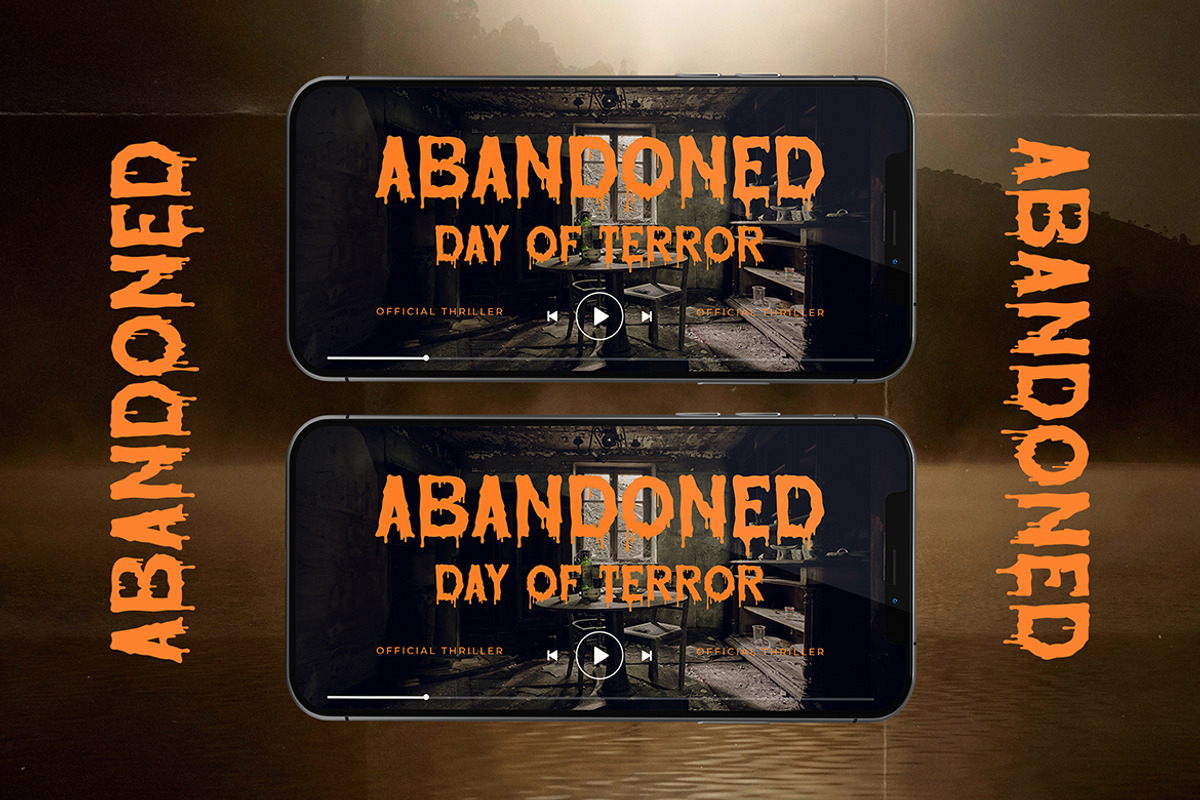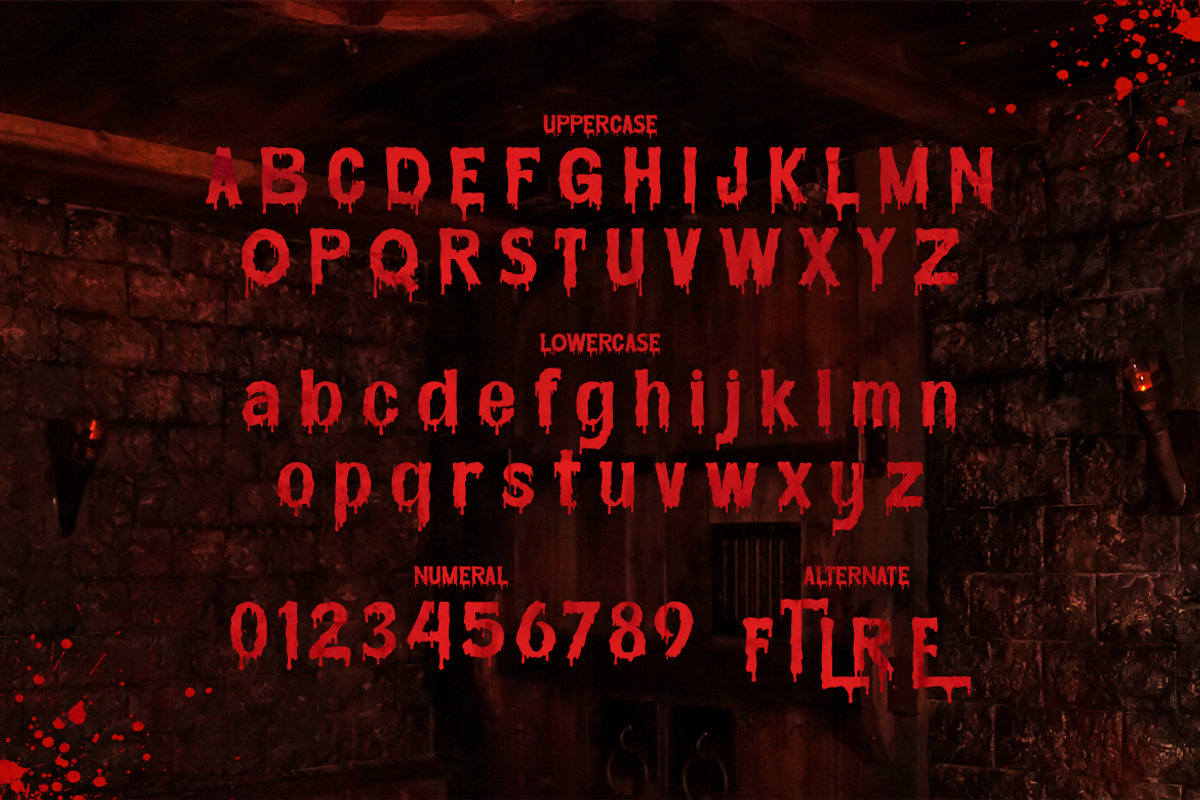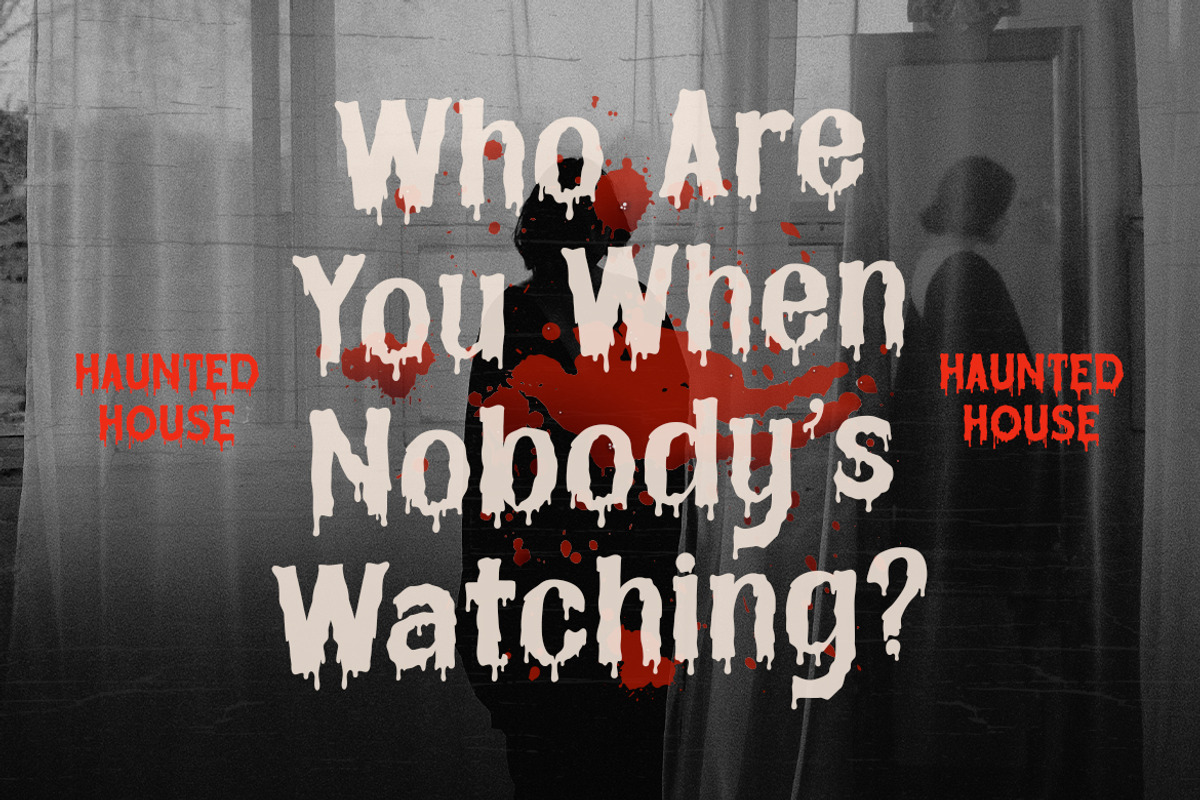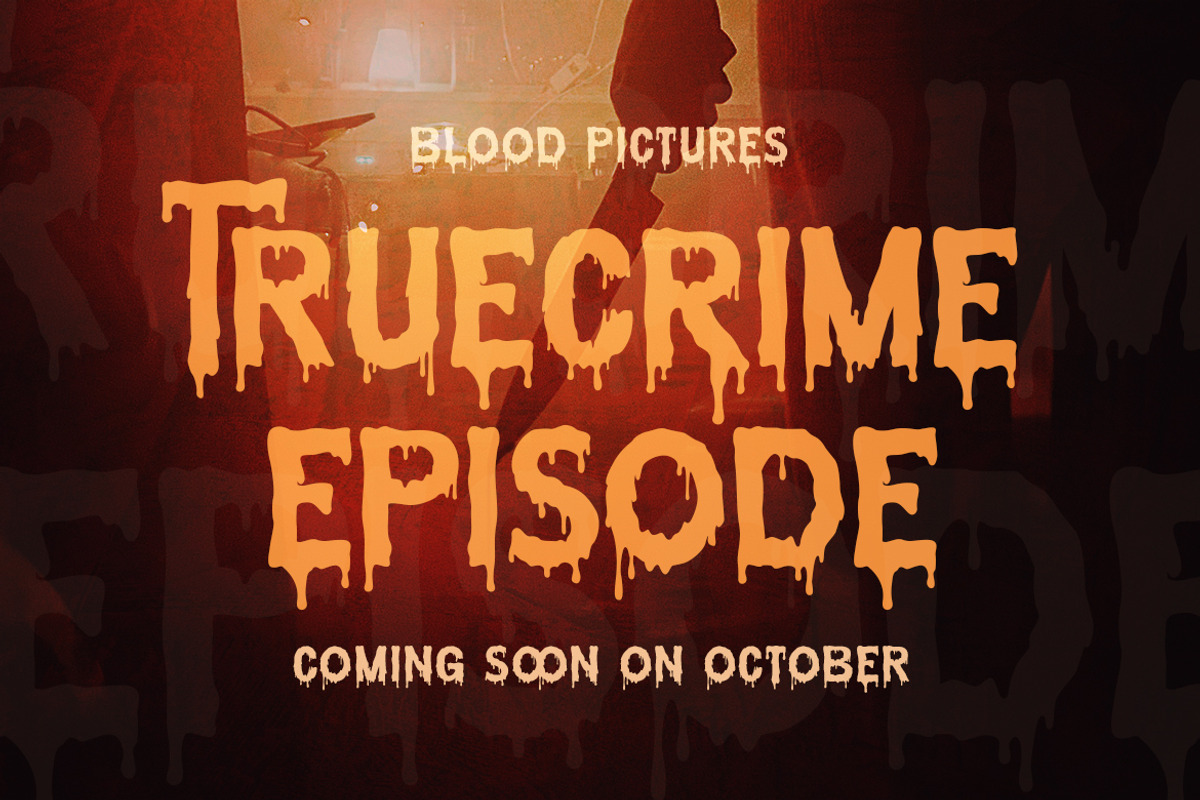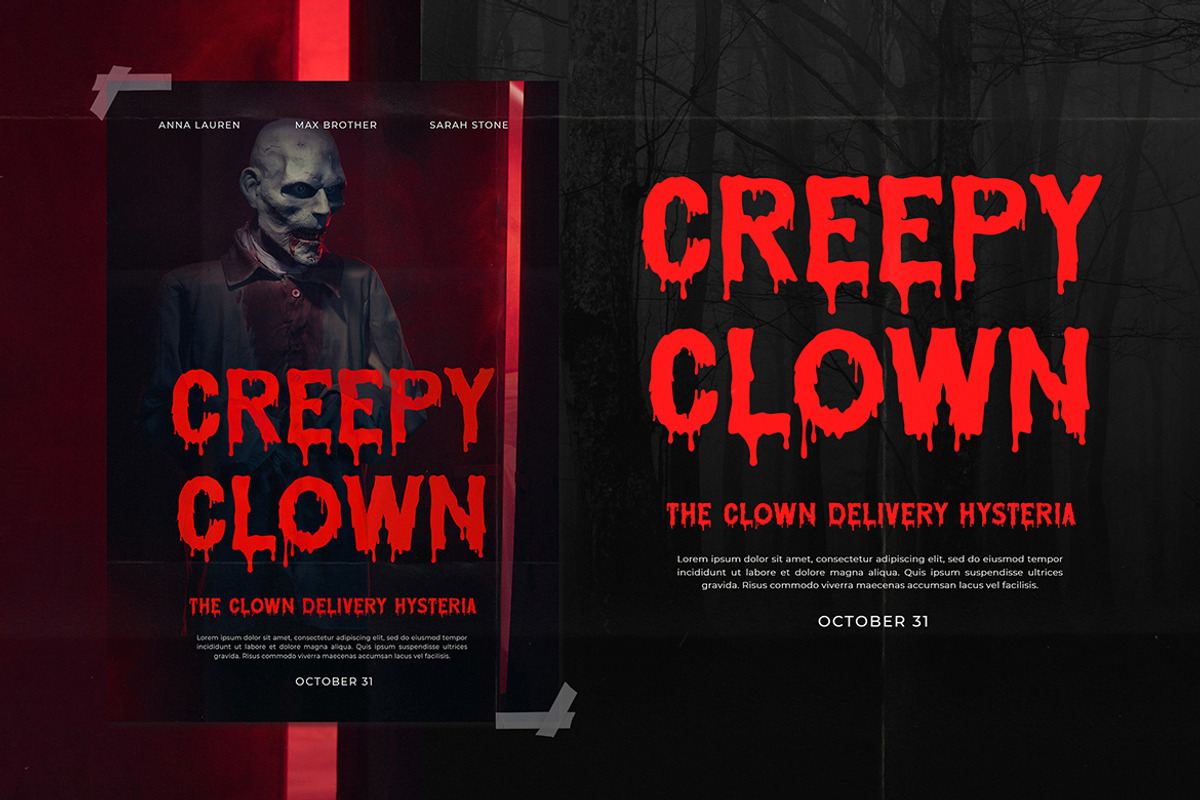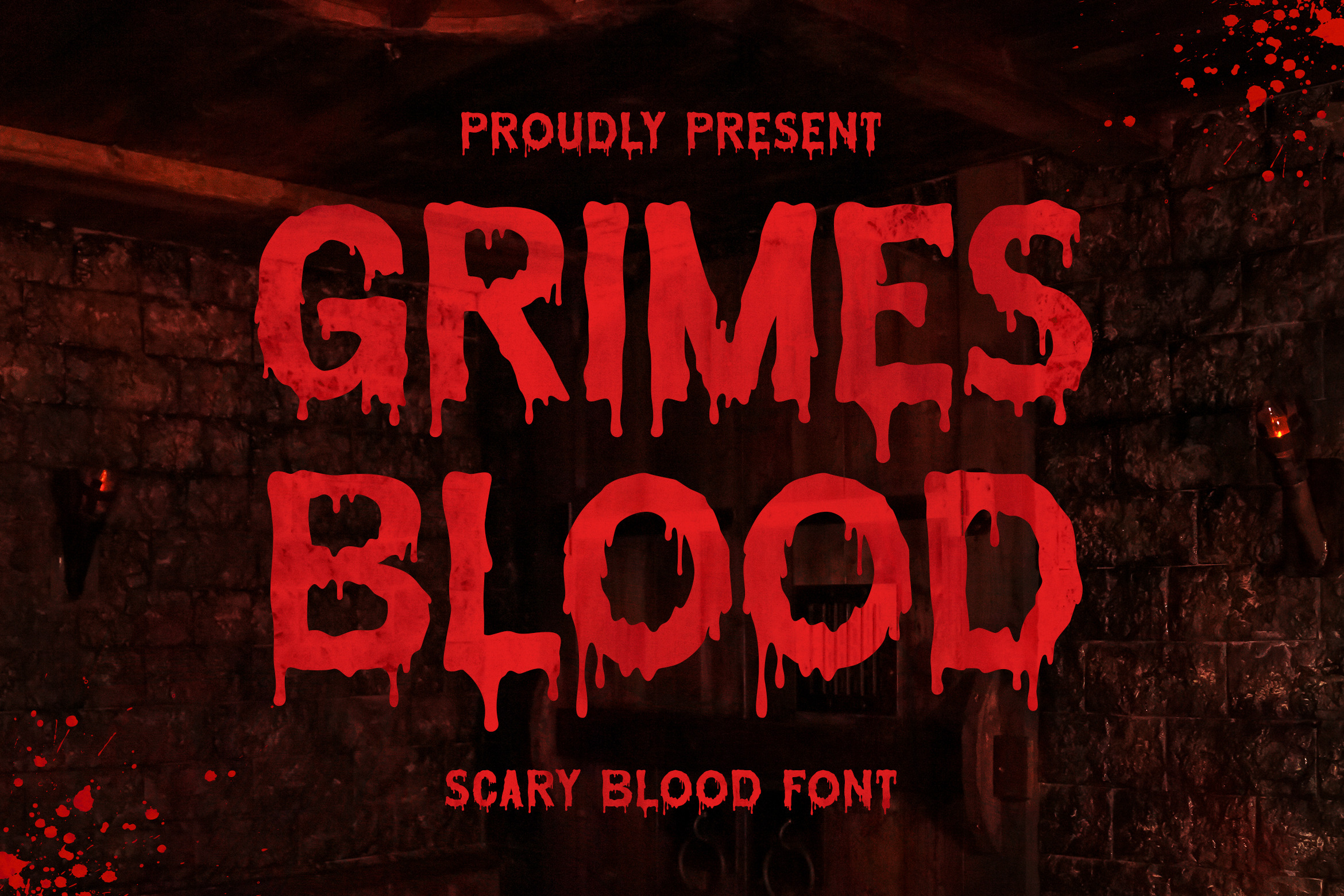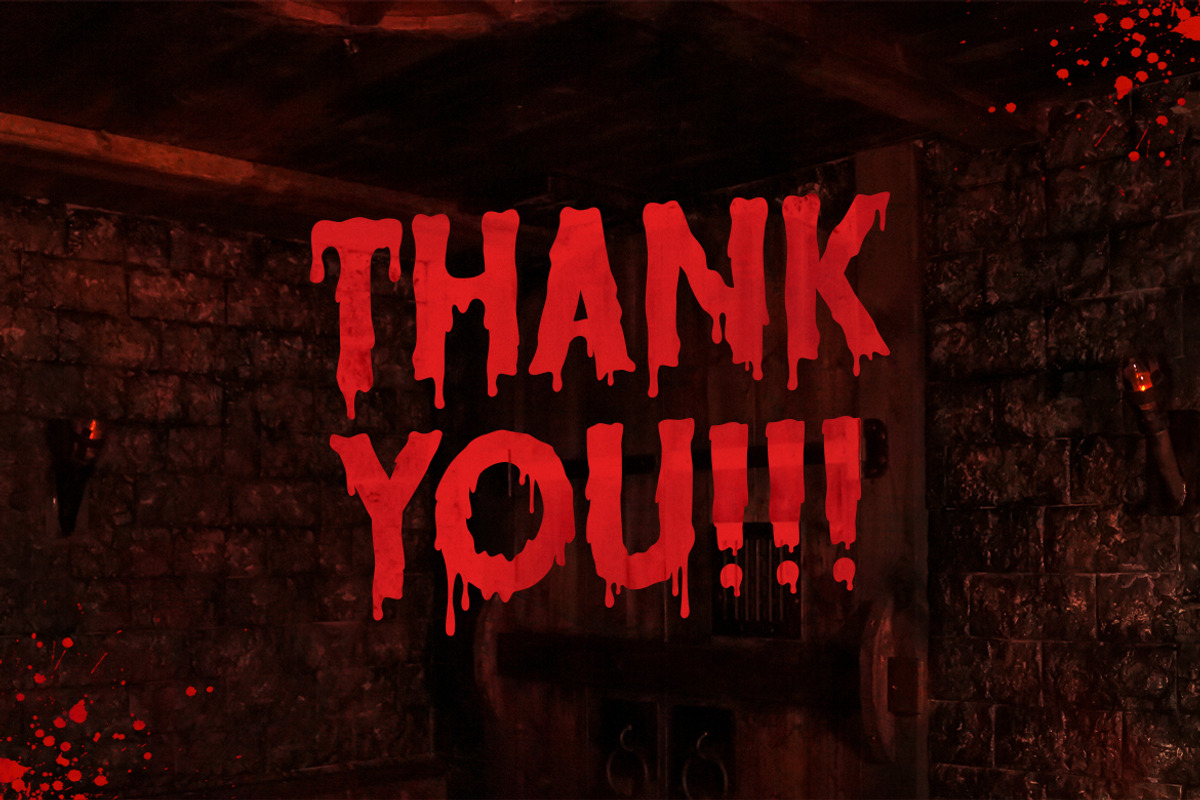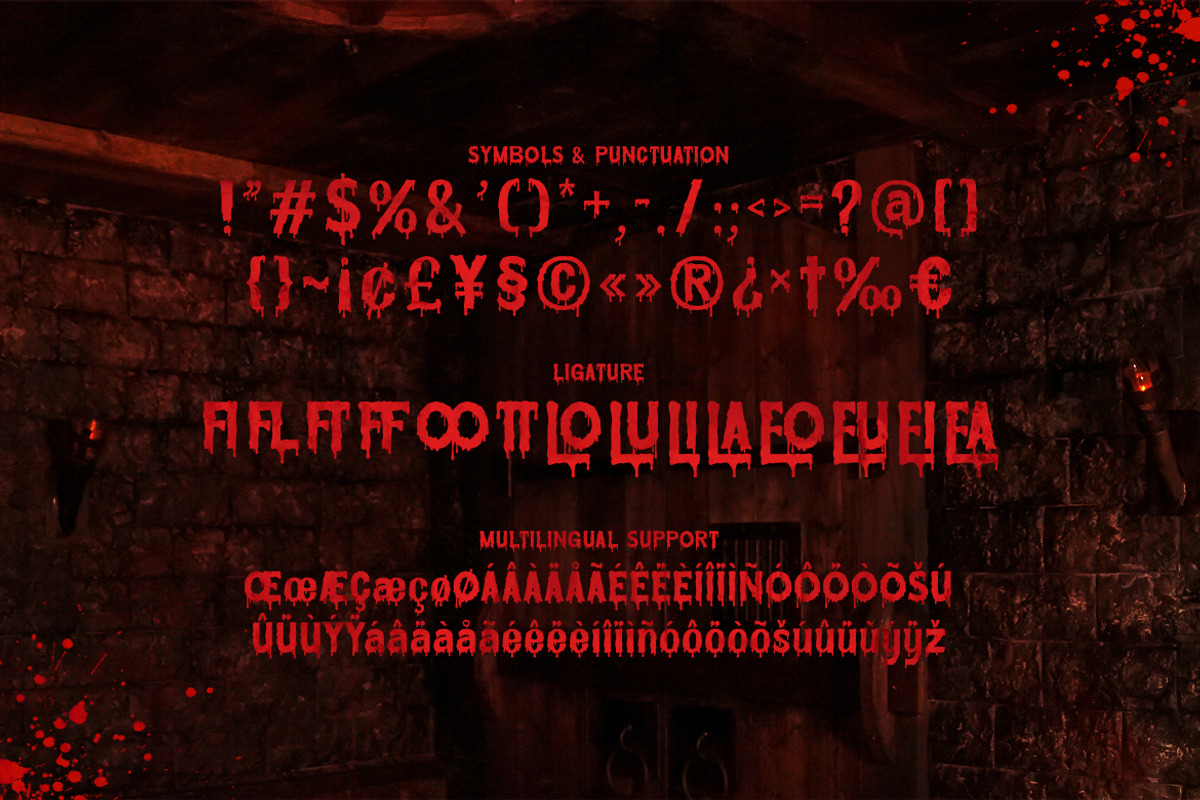
Grimes Blood - Scary Blood Font
Grimes Blood is a bloody, horror looking display font. Add it to your scary crafts, horror movie posters, t-shirts and anything else that requires a spectacular look.